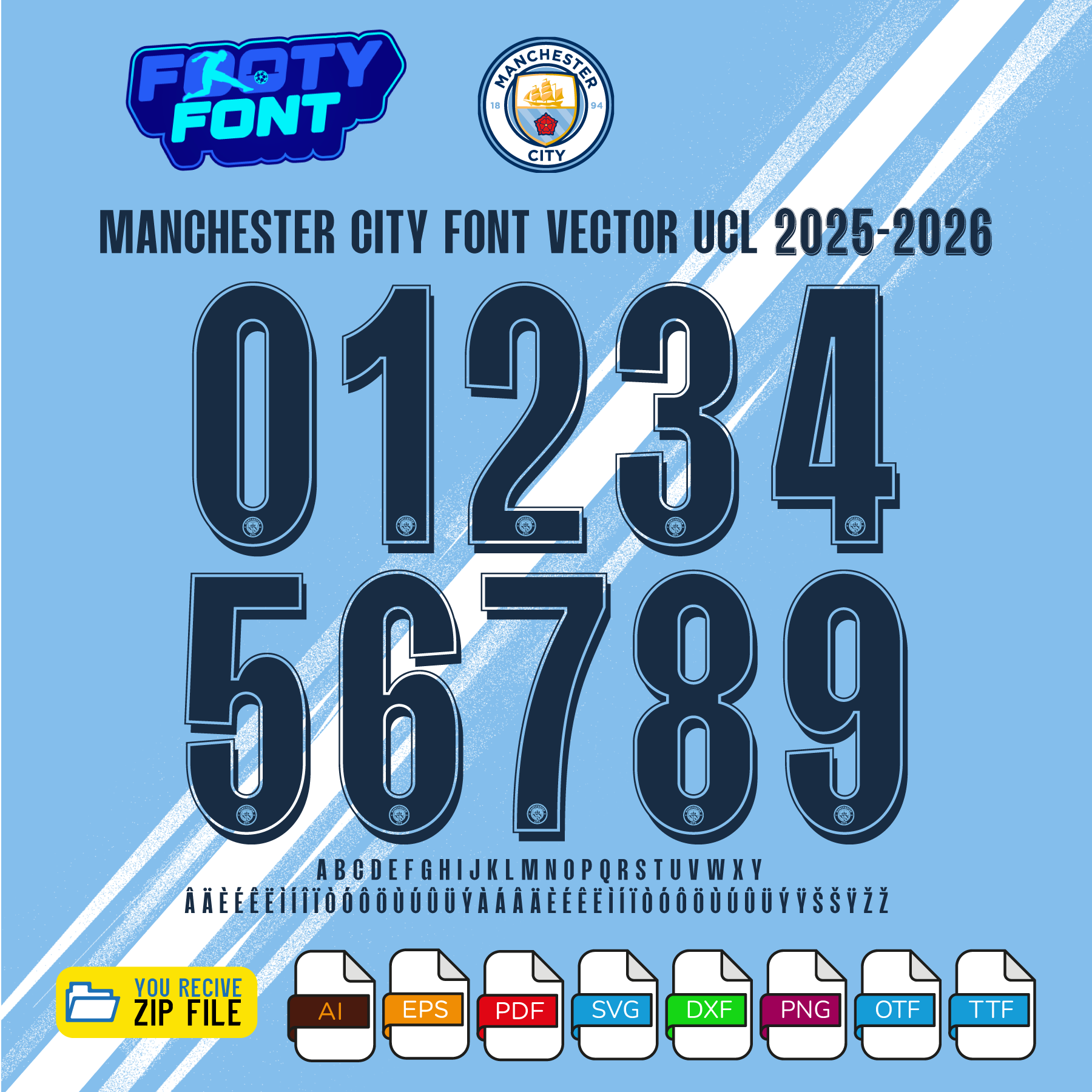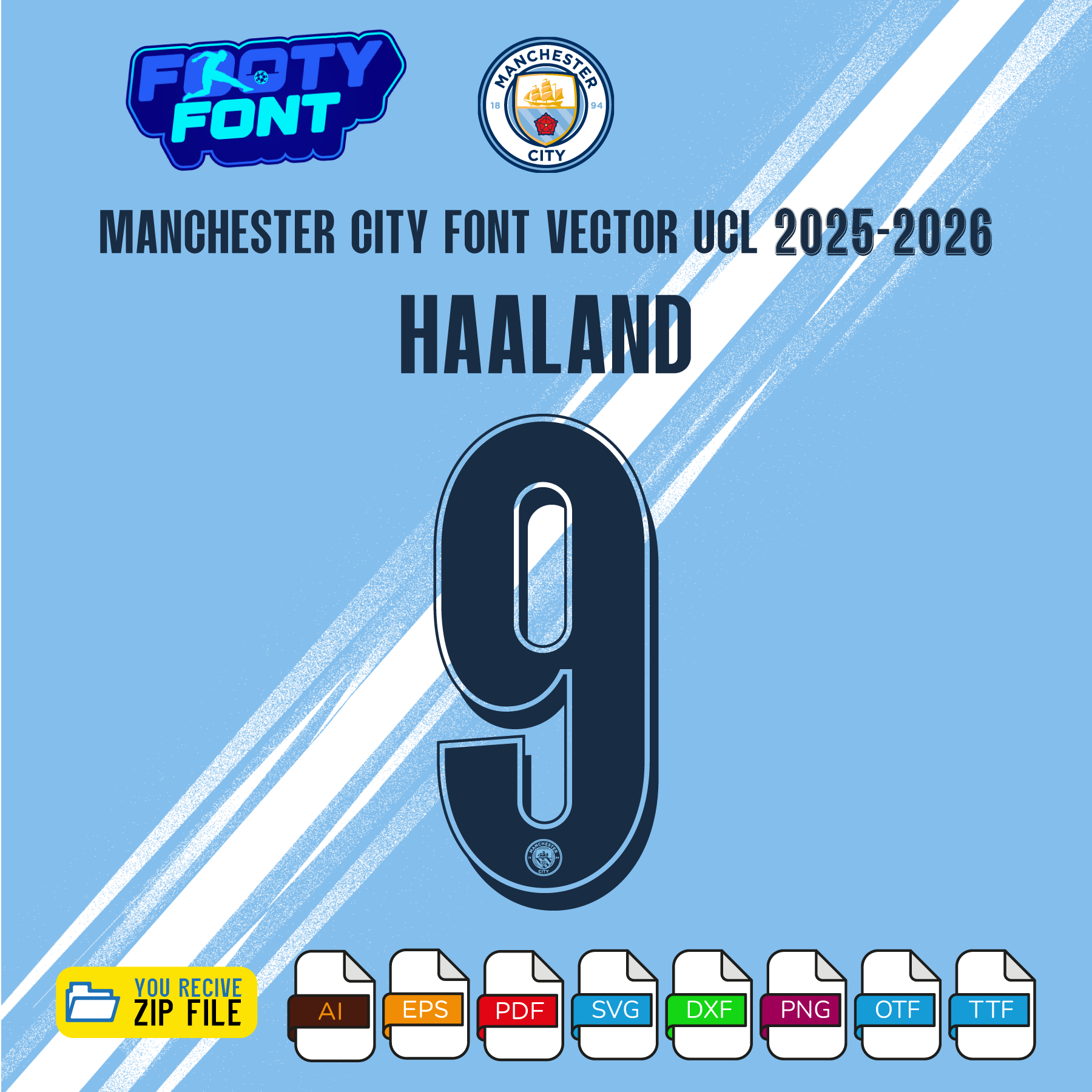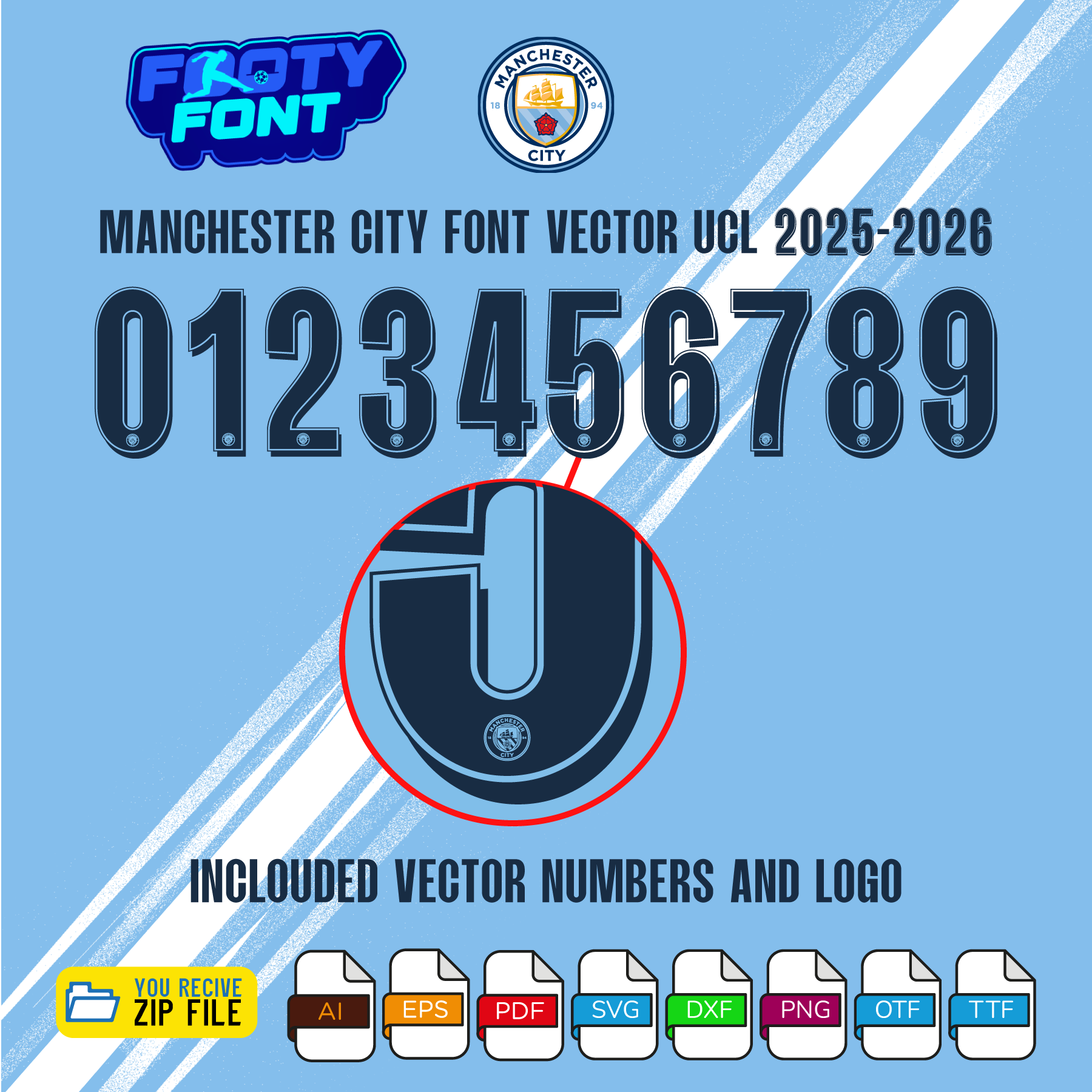
About the Manchester City 2025-2026 Football Font
Capture the style of the champions with this font, inspired by the Manchester City 2025-2026 UCL home kit. This is a high-quality typeface designed to replicate the look of the jersey worn by the Citizens during their European nights at the Etihad Stadium.
This font captures the dominant style made famous by global superstars like Erling Haaland, Kevin De Bruyne, and Phil Foden. It’s perfect for fans looking to create their own custom jersey designs for personal use, digital posters that celebrate the team, or any other project that shows your support for the blue side of Manchester.
Use this font to bring the champions’ style into your designs—whether for custom jersey graphics, fan merchandise, posters, or social media content.